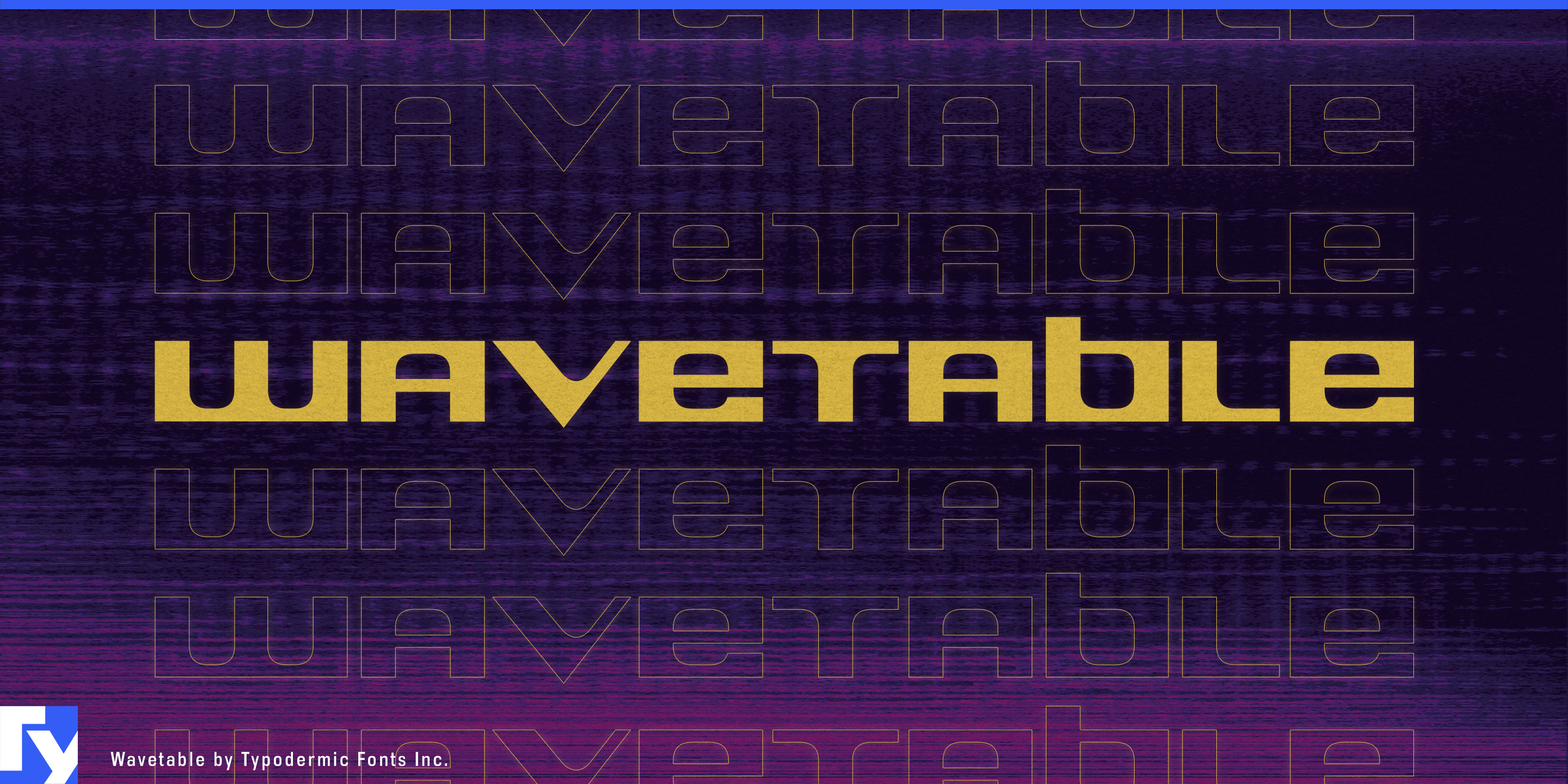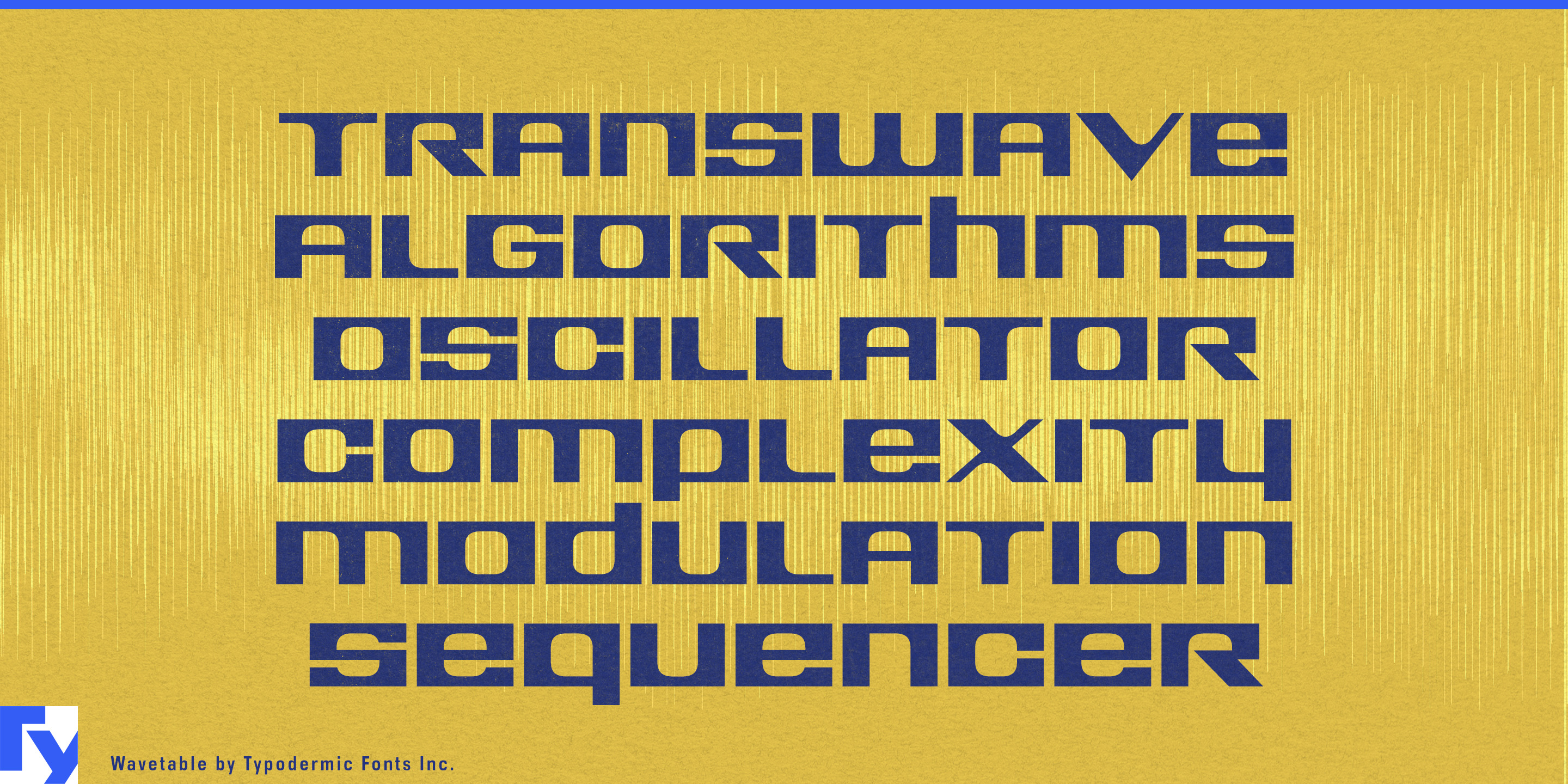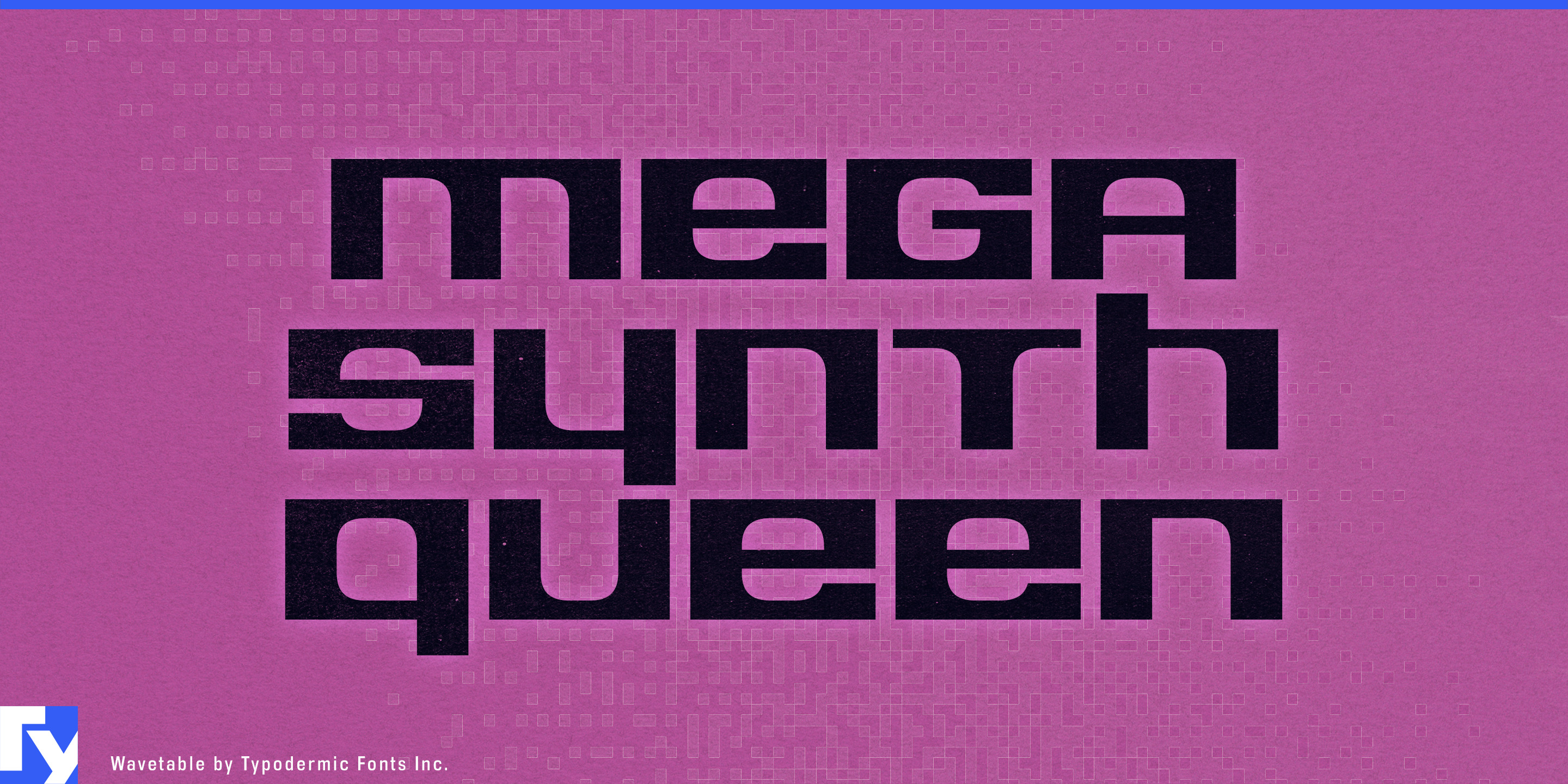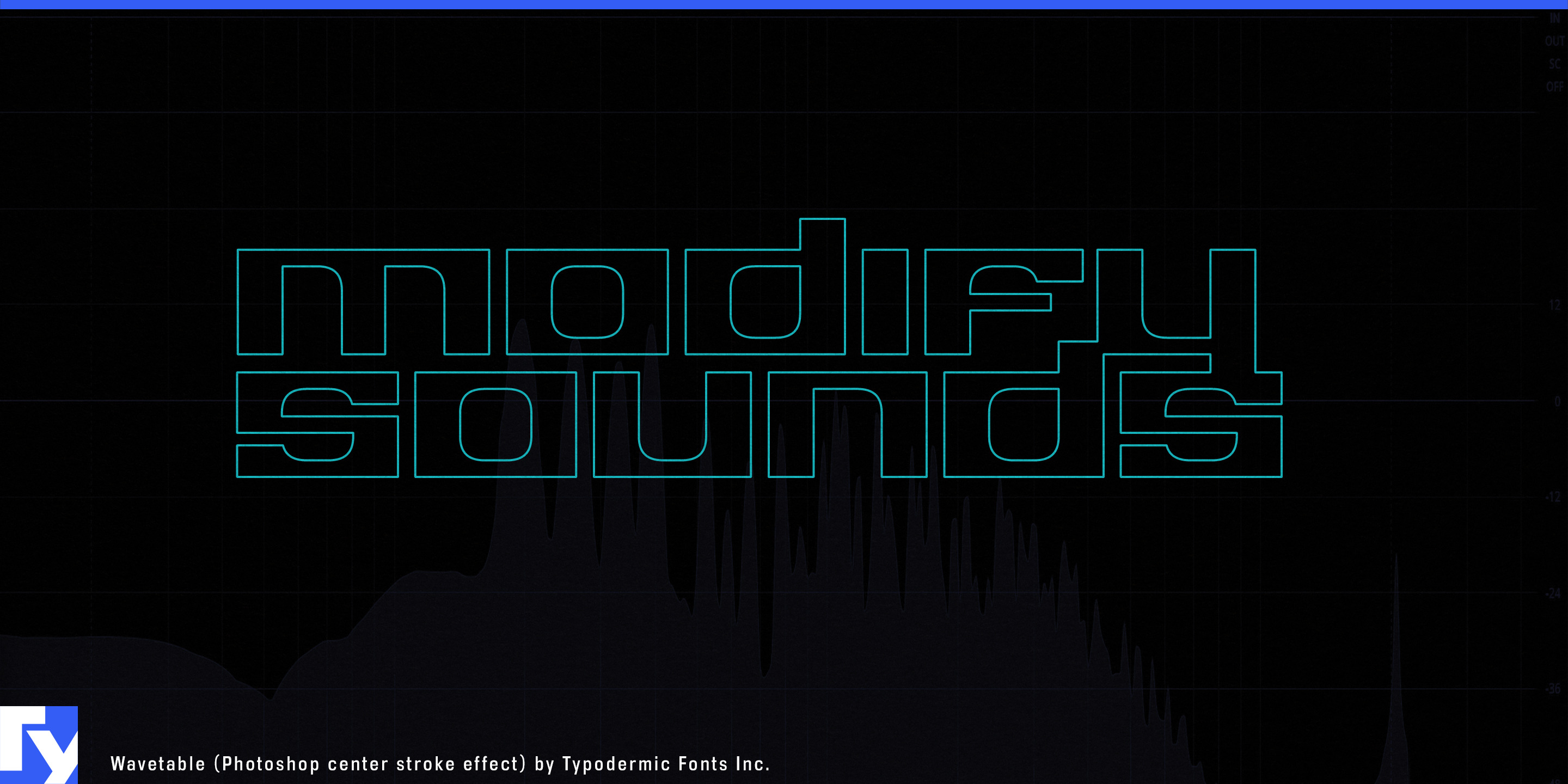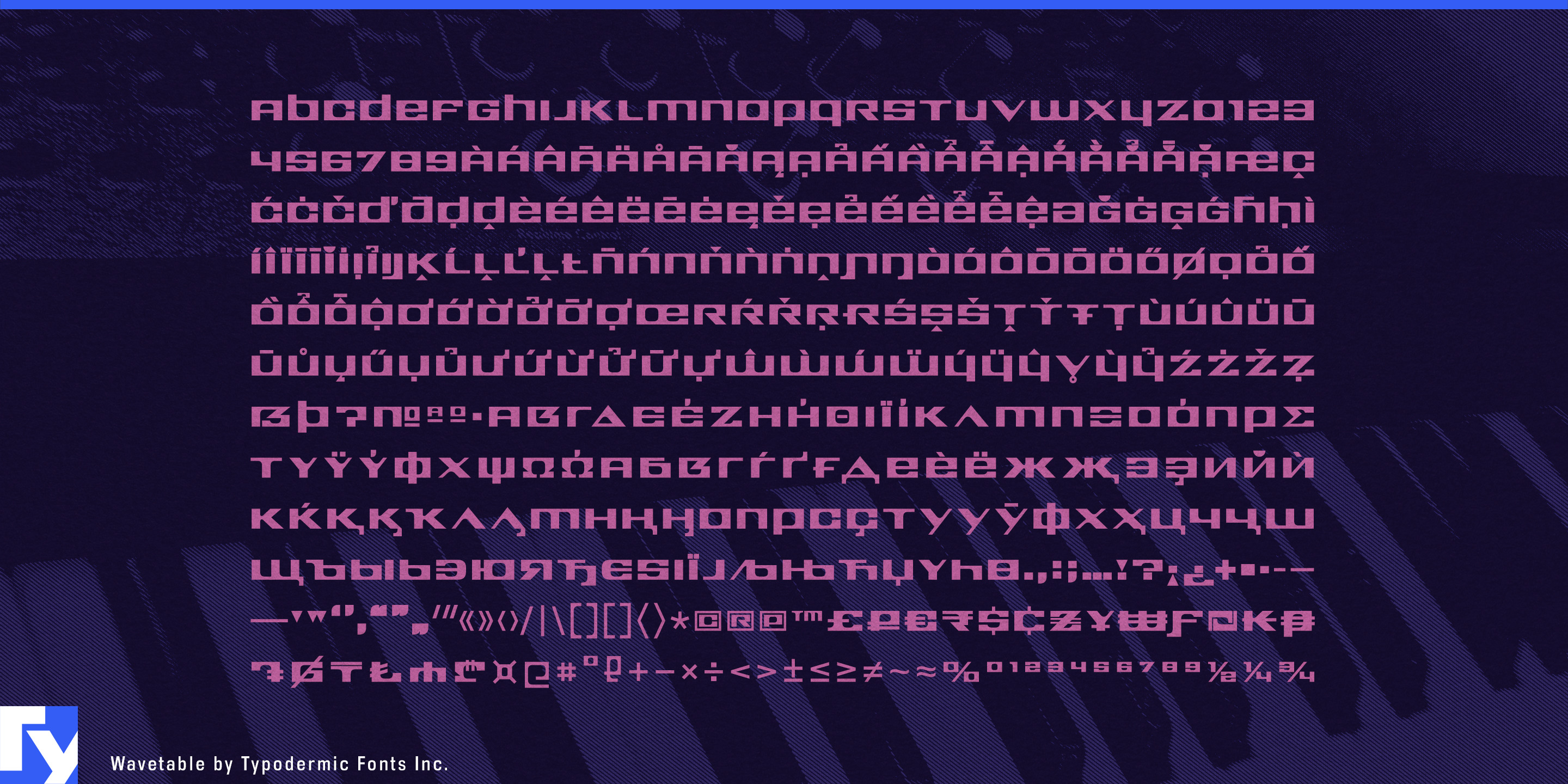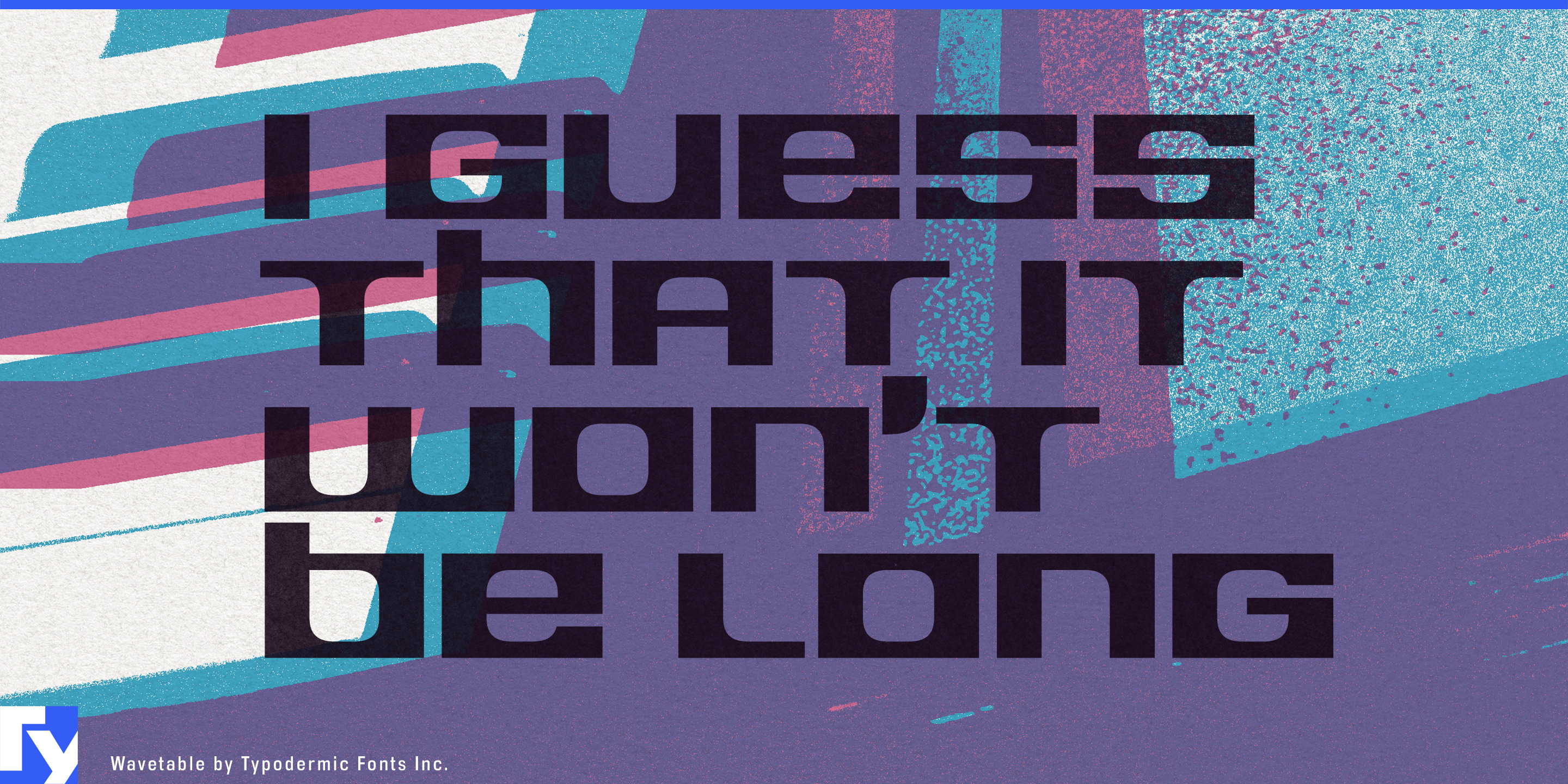
Wavetable
Modular display faces often suggest technology through pixels, screens or circuitry. Wavetable takes a more physical approach. Its condensed letterforms combine squared outer shapes, rounded interiors and repeated structural ideas, making words feel assembled from compatible parts.
That construction gives Wavetable a natural place on mechanical keyboards, macro pads, programmable controllers and other modular hardware. Model names, keycap collections, switch packaging and product graphics benefit from its narrow proportions and unusual unicase rhythm, especially when horizontal space is limited.
Music-production tools provide another strong fit. Software instruments, preset libraries, sample packs, Eurorack modules, grooveboxes and sequencers all use systems of repeated controls and components. Wavetable works best for instrument names, product families and major panel headings, leaving dense parameter labels and technical information to a quieter companion face.
The same logic extends into lighting and audiovisual equipment. LED matrix fixtures, pixel-mapped lighting, projection-mapping systems and VJ software can use Wavetable for fixture names, installation titles and catalogue graphics. Gaming peripherals such as arcade controllers, fighting sticks, streaming pads and sim-racing button boxes offer a similar relationship between compact lettering and modular equipment.
Even acoustic treatment fits the system: wall panels, studio treatment products and speaker collections can use Wavetable for collection names and showroom graphics. Its strongest role is naming things built from parts; keyboards, sequencers, lighting systems, controllers and other modular products all give its assembled geometry somewhere useful to belong.